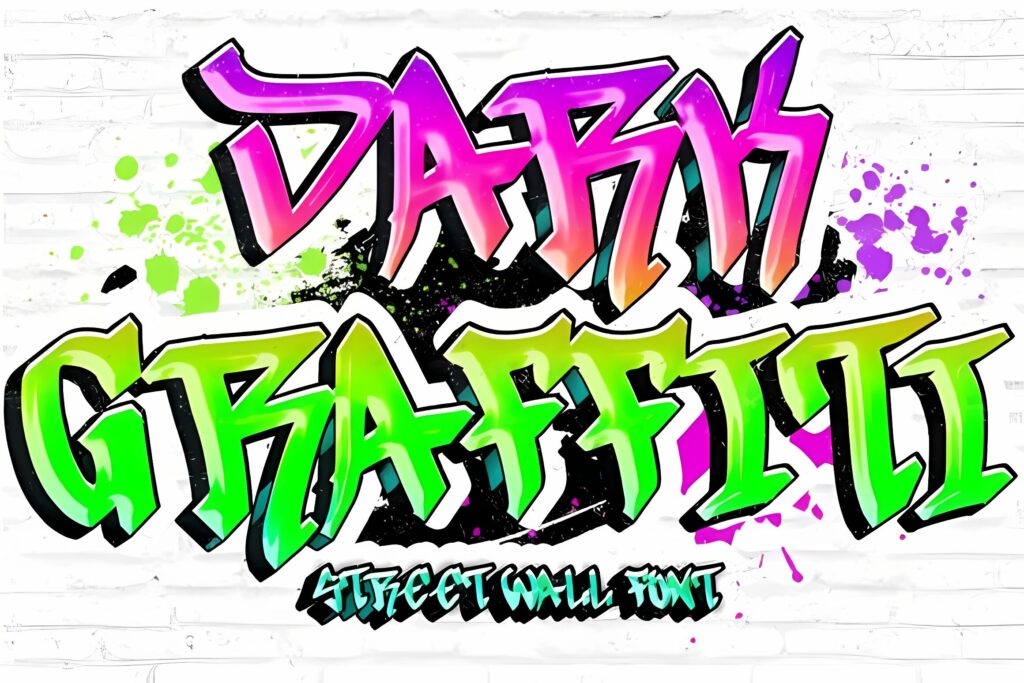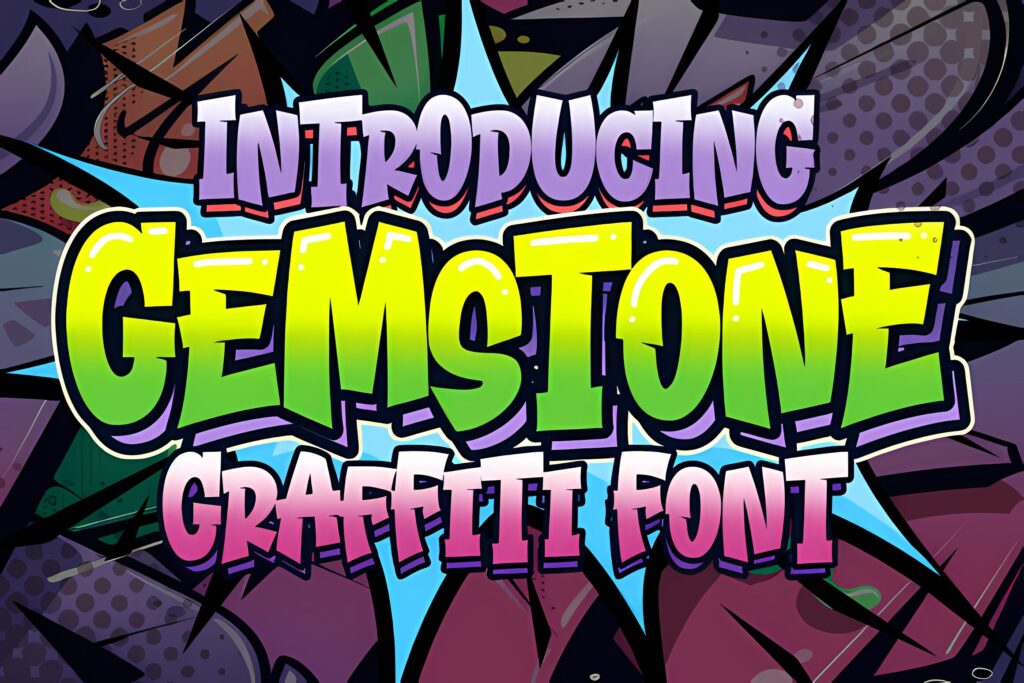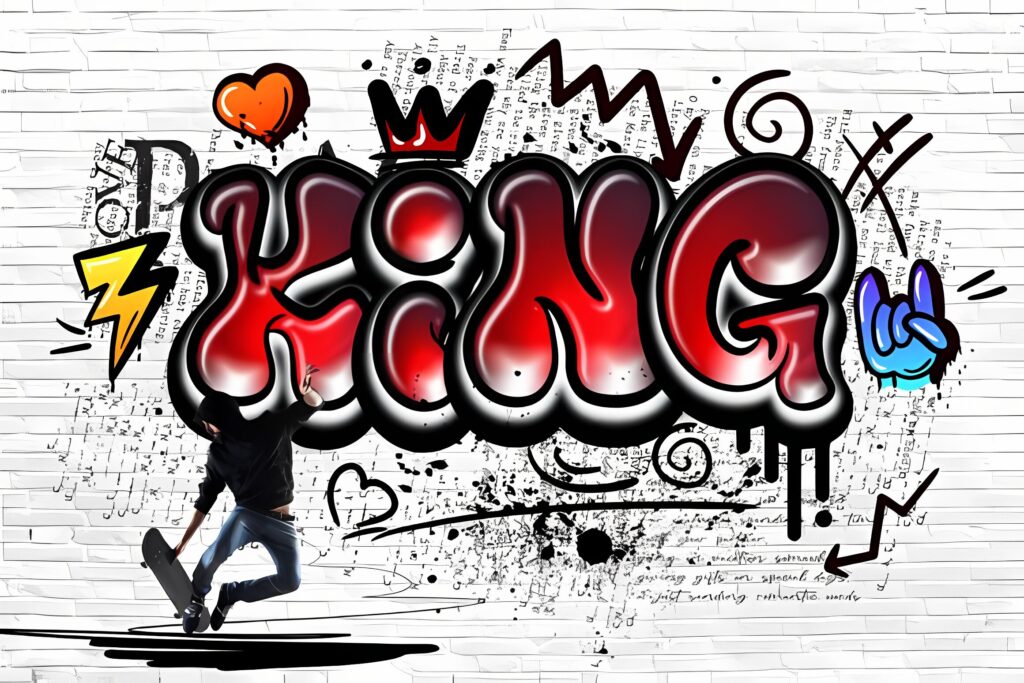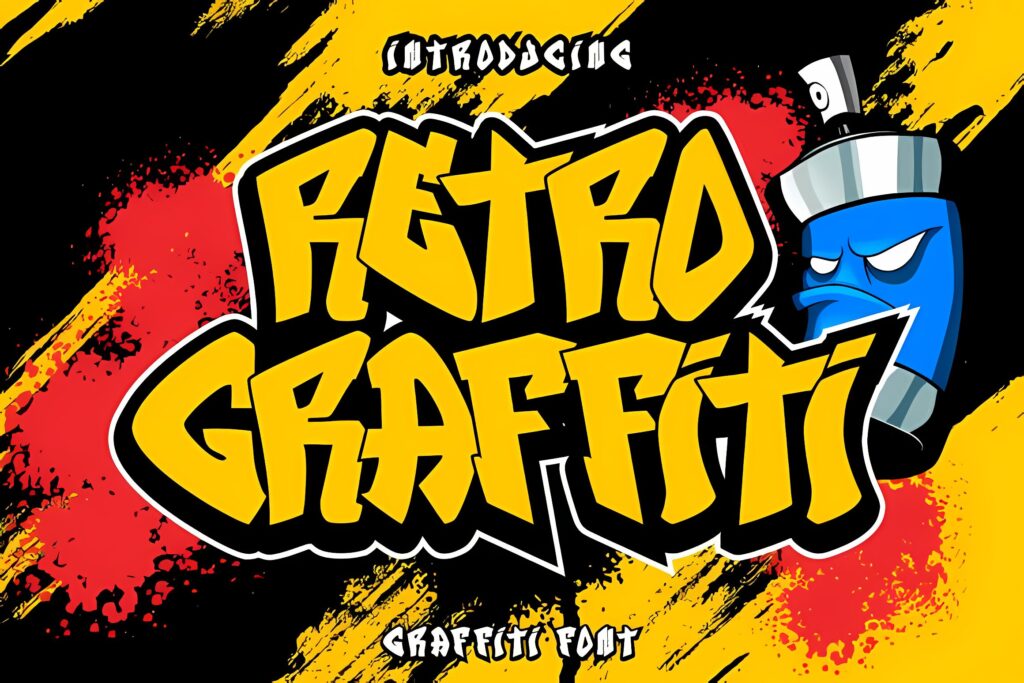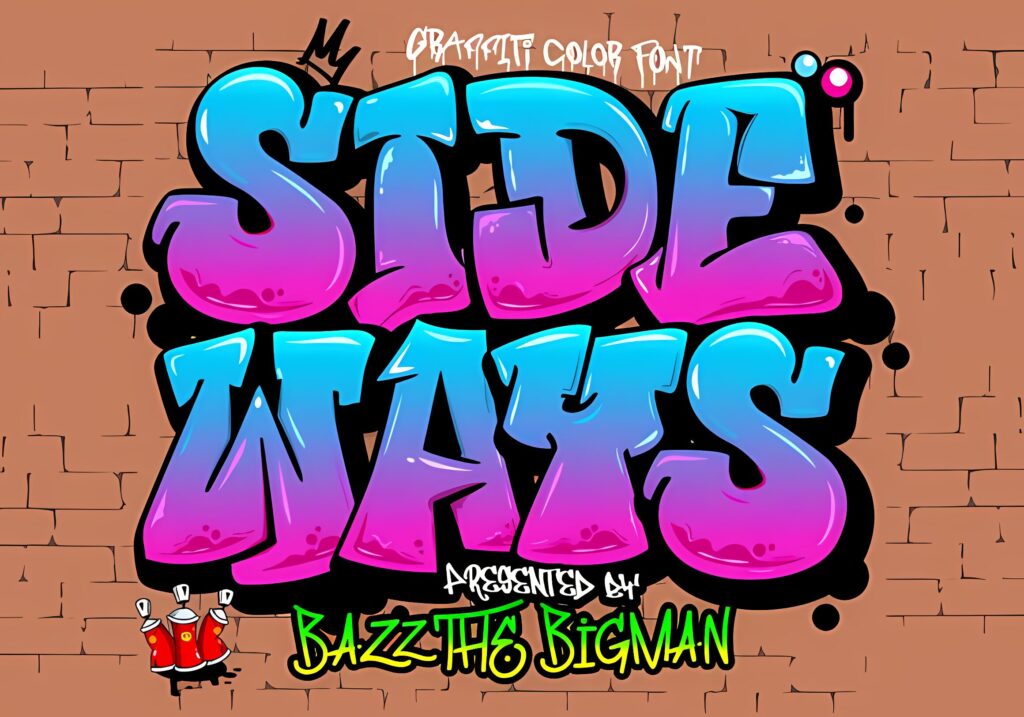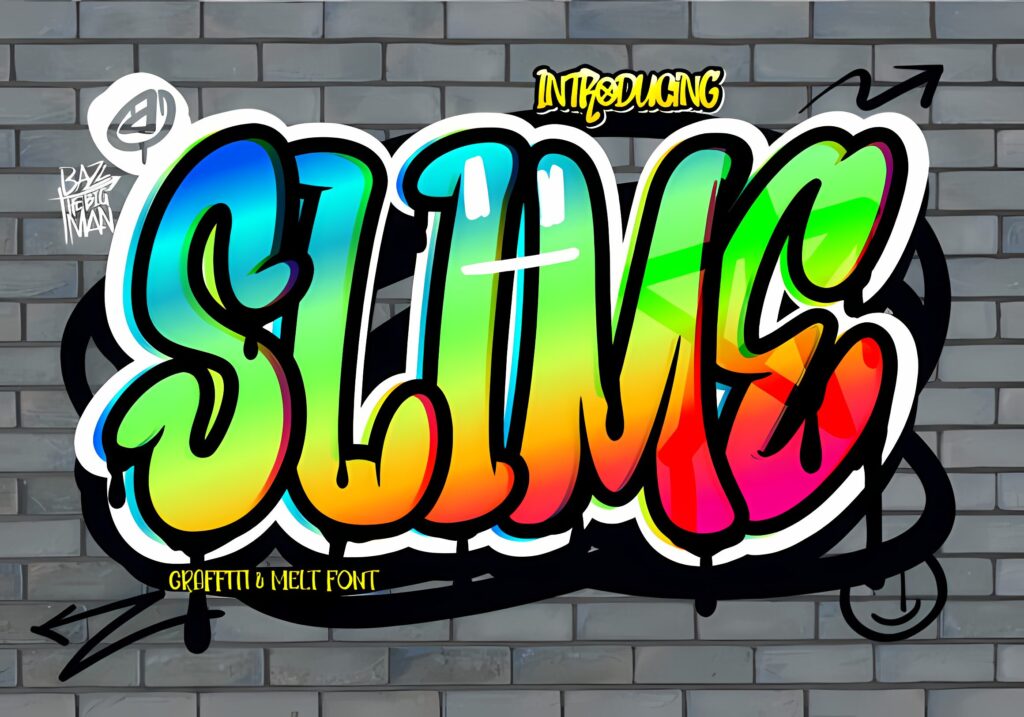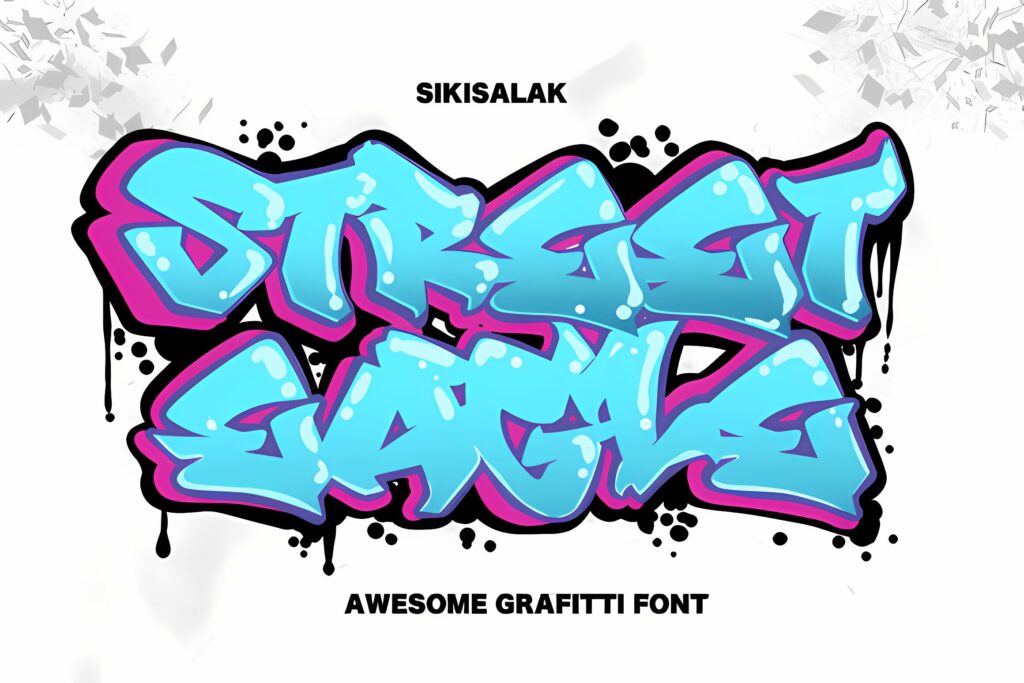
10 Premium Graffiti Fonts to Transform Your Projects
I’ve always been fascinated by how graffiti moved from furtive street tags to a full-fledged design language. As a designer, I rely on that raw energy to bring urban attitude into logos, apparel, music visuals, game art, and social media. In this roundup I’ve picked 10 graffiti fonts from Creative Fabrica that capture authentic street style while working smoothly in digital projects.
Graffiti started on walls for quick identity—tags, bubble throw‑ups, full‑color pieces, and complex Wildstyle—and those same moods now translate into typefaces. Today’s high‑quality digital graffiti fonts give me the grit of the streets with the polish I need for client work, and Creative Fabrica makes it easy to license and use them across print and web.
1. Gemstone Display Font
Gemstone is the outlined display I reach for when a design needs gritty, urban attitude. I use it for streetwear mockups, posters, album covers, and bold headers—its sharp outline cuts through visuals and gives layouts an instant graffiti‑style edge. A solid pick among graffiti Fonts when I want crisp, casual lettering that reads loud and clean.
2. Slime Display Font
Slime is the street‑style display I pull when a design needs raw graffiti energy. I drop it into t‑shirt art, sportswear, logos, ads, and bold packaging—its gooey, urban letterforms give projects an immediate street‑art vibe. A go‑to choice among graffiti Fonts when I want edgy, wearable typography that stands out.
3. Dark Graffiti Blackletter Font
Dark Graffiti is the polished, edgy type I reach for when a project needs refined street attitude. I use its full character set—upper/lowercase, numbers, punctuation, and multilingual support—for murals, tees, jackets, logos, stickers, and tattoo mockups. It brings a sleek, versatile edge to my urban work and ranks high on my list of graffiti Fonts for projects that need both elegance and grit.
4. King Graffiti Display Font
King Graffiti is the bold, in‑your‑face type I grab when I want a design to own the street. I use its strong outlines and graffiti flair for posters, murals, album art, and any piece that needs to shout. A top pick among graffiti Fonts when I need instant attitude and visual impact.
5. Sicko Display Font
Sicko is the gritty graffiti font I reach for when a project needs raw attitude. I use it on product packaging, branding, magazine layouts, social posts, and album covers—anywhere I want words to pop against a textured background. It’s a staple in my collection of graffiti Fonts for bold, expressive designs.
6. Street Eagle Graffiti Display Font
Street Eagle is the rugged display I reach for when a design needs raw, graffiti energy. I drop it into apparel, logos, wall decor, posters, and hands‑on craft projects—anywhere a personalized, streetwise look fits. It gives my work bold character and instant attitude, a reliable pick among graffiti Fonts when I want designs that feel crafted, gritty, and unmistakably urban.
7. Sideways Display Color Font
Sideways is the color font I grab when a project needs bold street‑art energy. Its urban letterforms pop on tees, sportswear, logos, ads, and apparel graphics. I use the SVG color version for vibrant headers in Photoshop or Illustrator, but note the OTF/TTF files won’t work with Cricut. For more on working with color fonts, see the Ultimate Font Guide. A standout pick among graffiti Fonts when I want loud, wearable typography.
8. Retro Graffiti Display Font
Retro Graffiti is the chunky display I reach for when a design needs big, playful street energy. I use its bold letters for posters, merch, album art, and urban branding—works especially well on tees and signage where impact matters. It brings that classic graffiti vibe without fuss and sits high on my list of go‑to graffiti Fonts for projects that need loud, confident lettering.